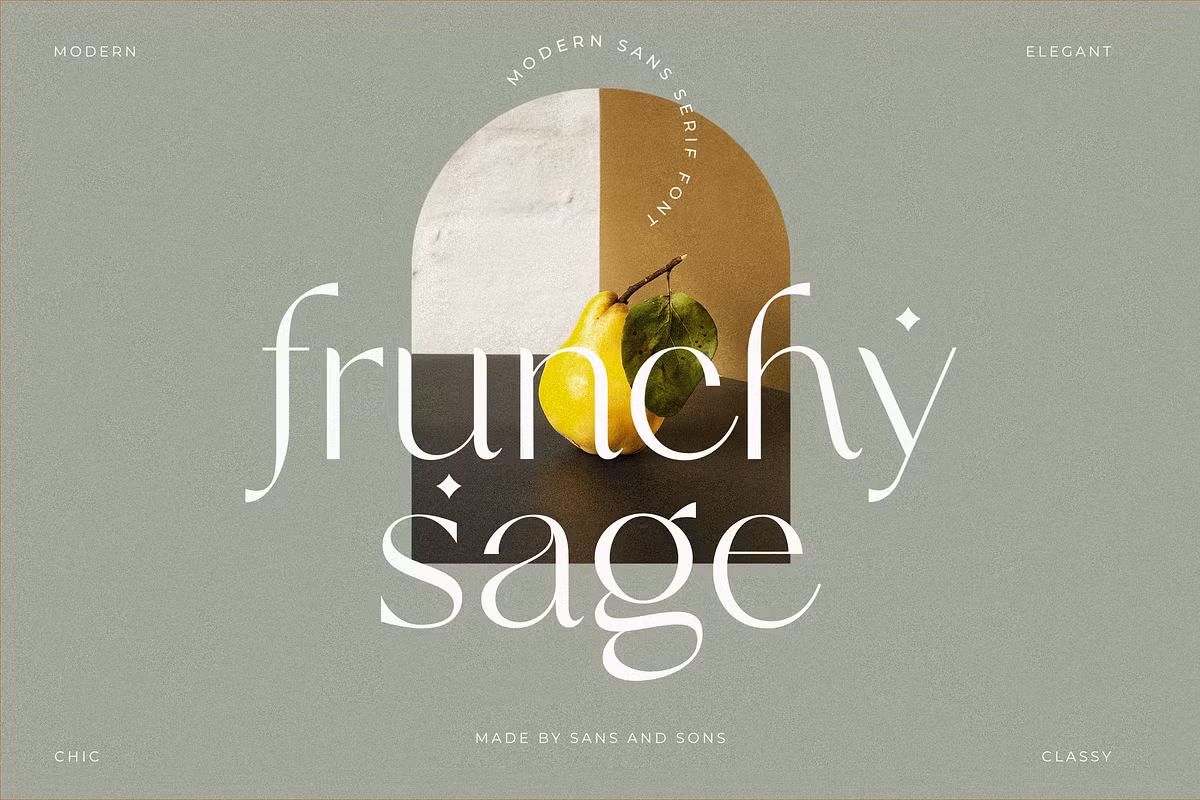
Frunchy - Modern Chic Font Free Download
Frunchy - Modern Chic Font Free Download is a stylish and contemporary typeface that blends modern aesthetics with a chic, sophisticated feel. With its sleek, clean lines and elegant structure, Frunchy is perfect for fashion branding, editorial layouts, luxury product packaging, social media graphics, and any project that needs a fashionable and upscale look.
Frunchy - Modern Chic Font Free Download offers a refined balance of simplicity and elegance, making it ideal for creating striking headlines, logo designs, and minimalist layouts. Whether you're working on high-end branding or creative projects with a contemporary edge, Frunchy adds a touch of modern chic to your typography. Download it today and elevate your designs with the sleek sophistication of Frunchy.